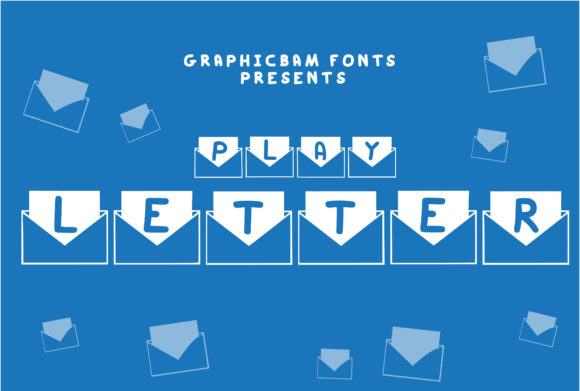
**Introducing Play Letter Font: The Quintessential Decorative Font for Every Occasion**
Step into the captivating world of Play Letter Font, a meticulously crafted font that exudes elegance and charm. This decorative masterpiece is the epitome of versatility, promising to elevate your designs to new heights.
Indulge in the playful spirit of Play Letter Font, a creation of GraphicsBam Fonts, renowned for their impeccable artistry. With its whimsical curves and playful strokes, this font is a feast for the eyes, adding a touch of enchantment to any project it graces.
Whether you're an avid crafter, a digital design virtuoso, a presentation maestro, or a greeting card aficionado, Play Letter Font has the magical ability to transform your creations into works of art. Its enchanting aura will captivate your audience, leaving an unforgettable impression that lingers long after the page is turned.
**Embrace the Endless Possibilities of Play Letter Font:**
- **Craft** - Unleash your inner artist with Play Letter Font, the perfect companion for handmade cards, scrapbook embellishments, and personalized gifts that will be cherished for years to come.
- **Digital Design** - Elevate your digital creations with a font that exudes both professionalism and whimsy. From eye-catching website headlines to captivating social media graphics, Play Letter Font will make your designs shine.
- **Presentations** - Command attention and leave a lasting impact with presentations that feature Play Letter Font. Its captivating curves and bold presence will ensure that your message is both heard and remembered.
- **Greeting Cards** - Spread joy and well wishes with greeting cards that are as unique as they are heartfelt. Play Letter Font's playful spirit will add a touch of magic to every card you create, making it a keepsake that will be treasured.
**Elevate Your Designs with Play Letter Font Today:**
Join the countless designers, crafters, and creatives who have fallen in love with the charm and versatility of Play Letter Font. Its timeless appeal and endless possibilities will ignite your imagination and transform your designs into masterpieces that captivate and inspire.